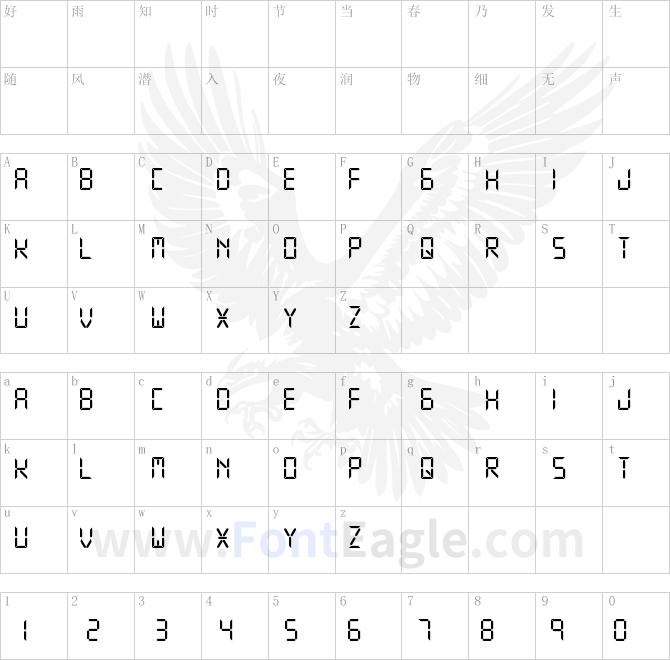
digital-display-tfb is a great font, widely used in graphic design, single-page menu design, poster design and other fields, and is deeply loved by designers.digital-display-tfb download.